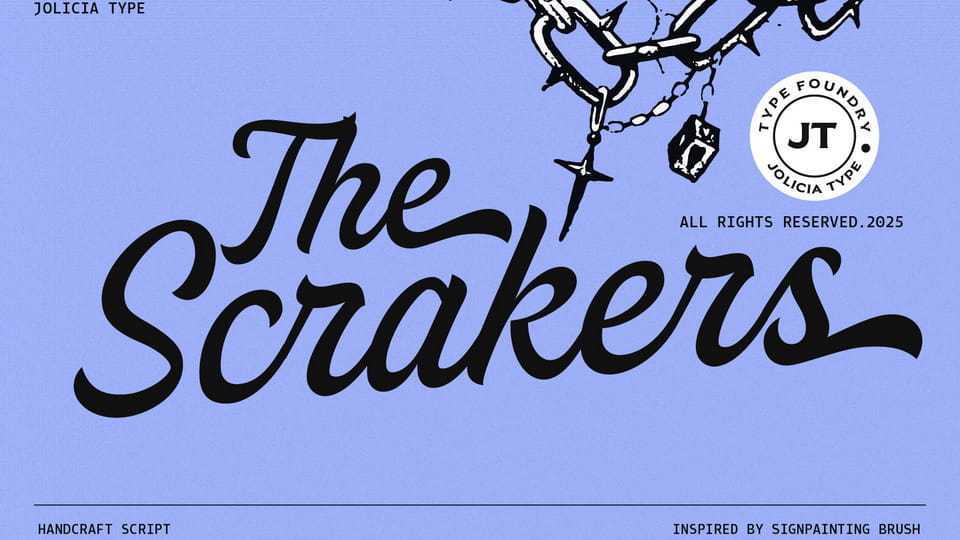
Download Scrakers font, a bold script typeface inspired by classic sign painting brush lettering, crafted to deliver strong visual impact with an authentic hand-painted feel.